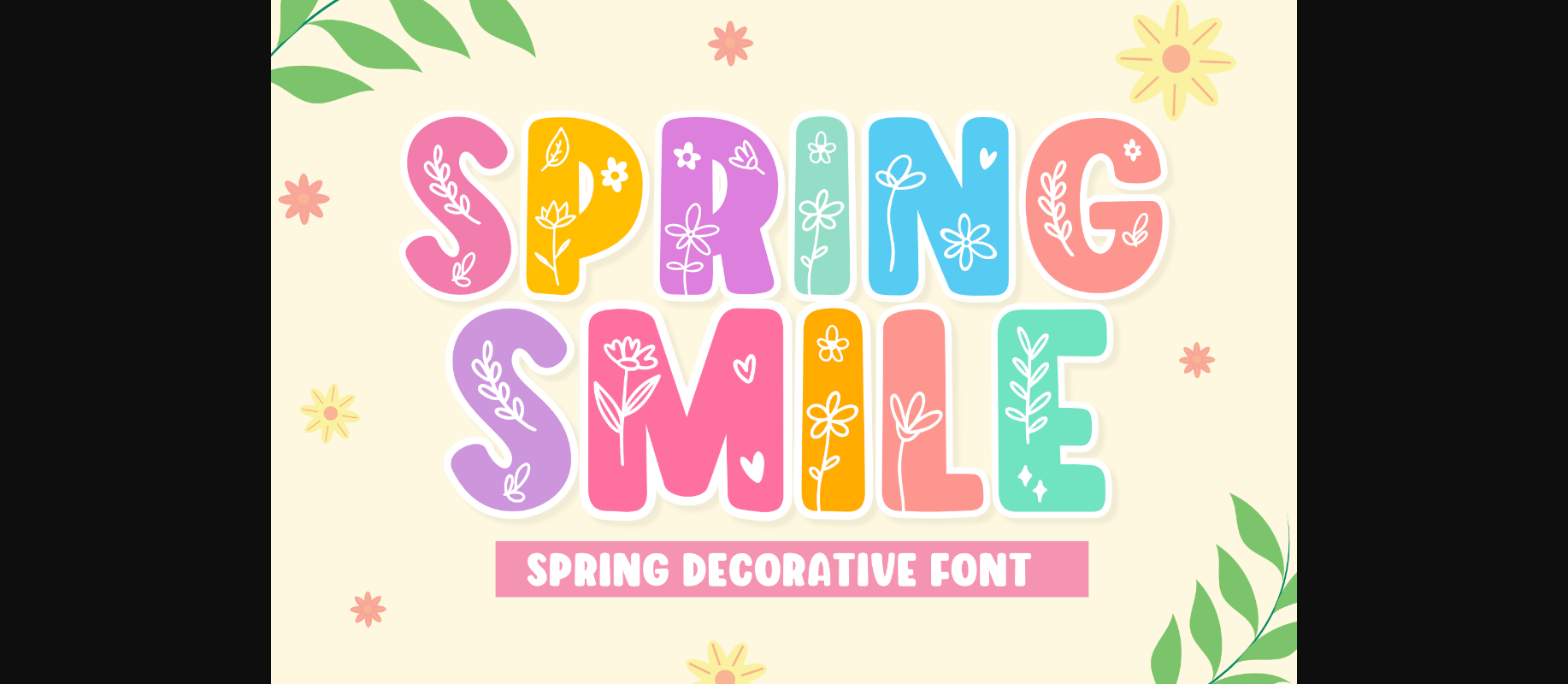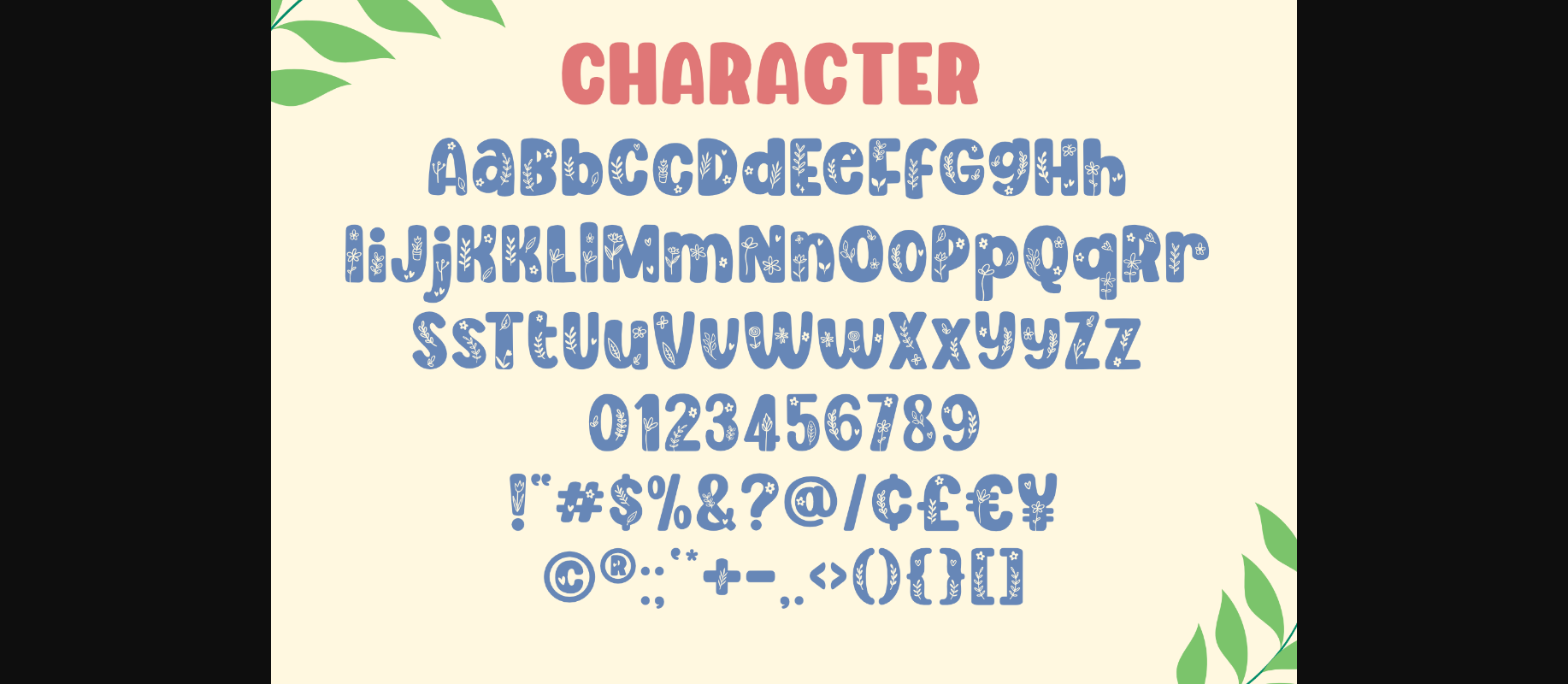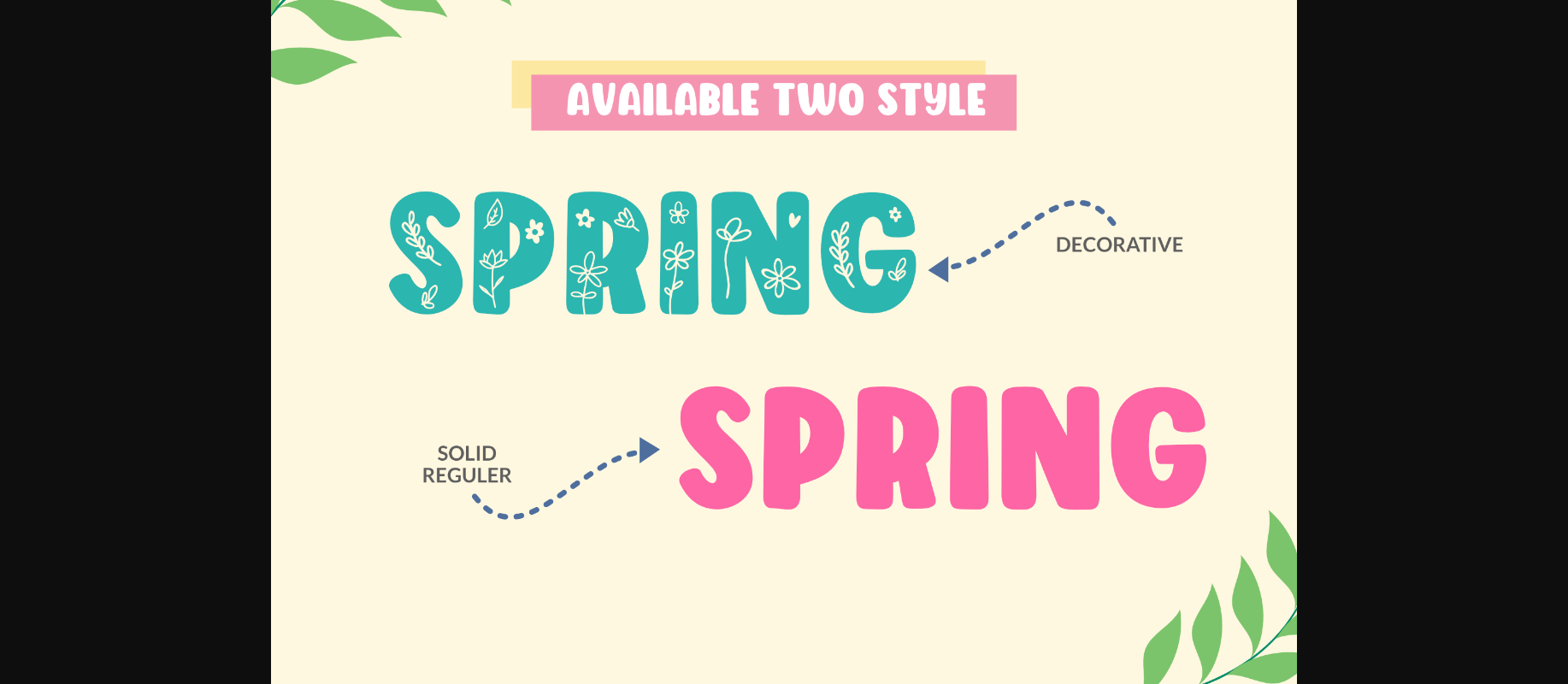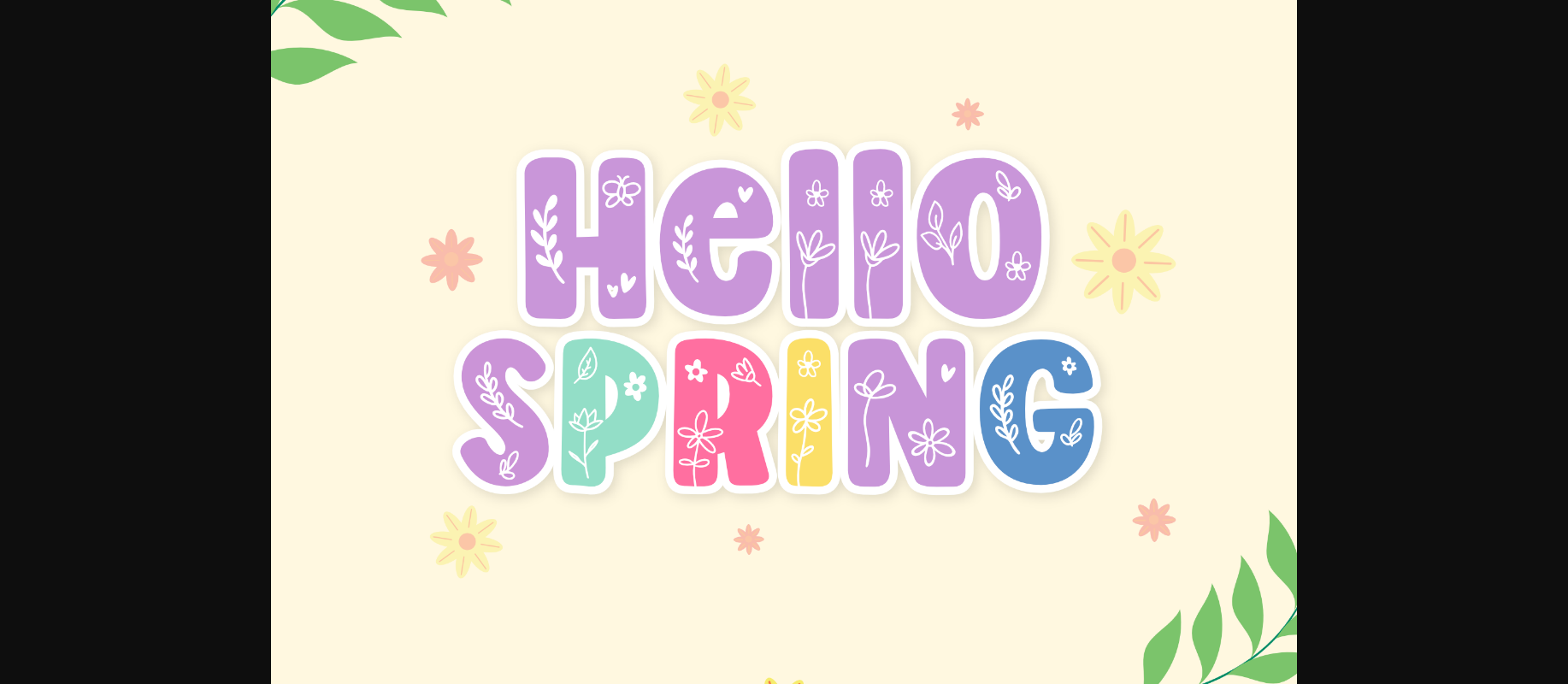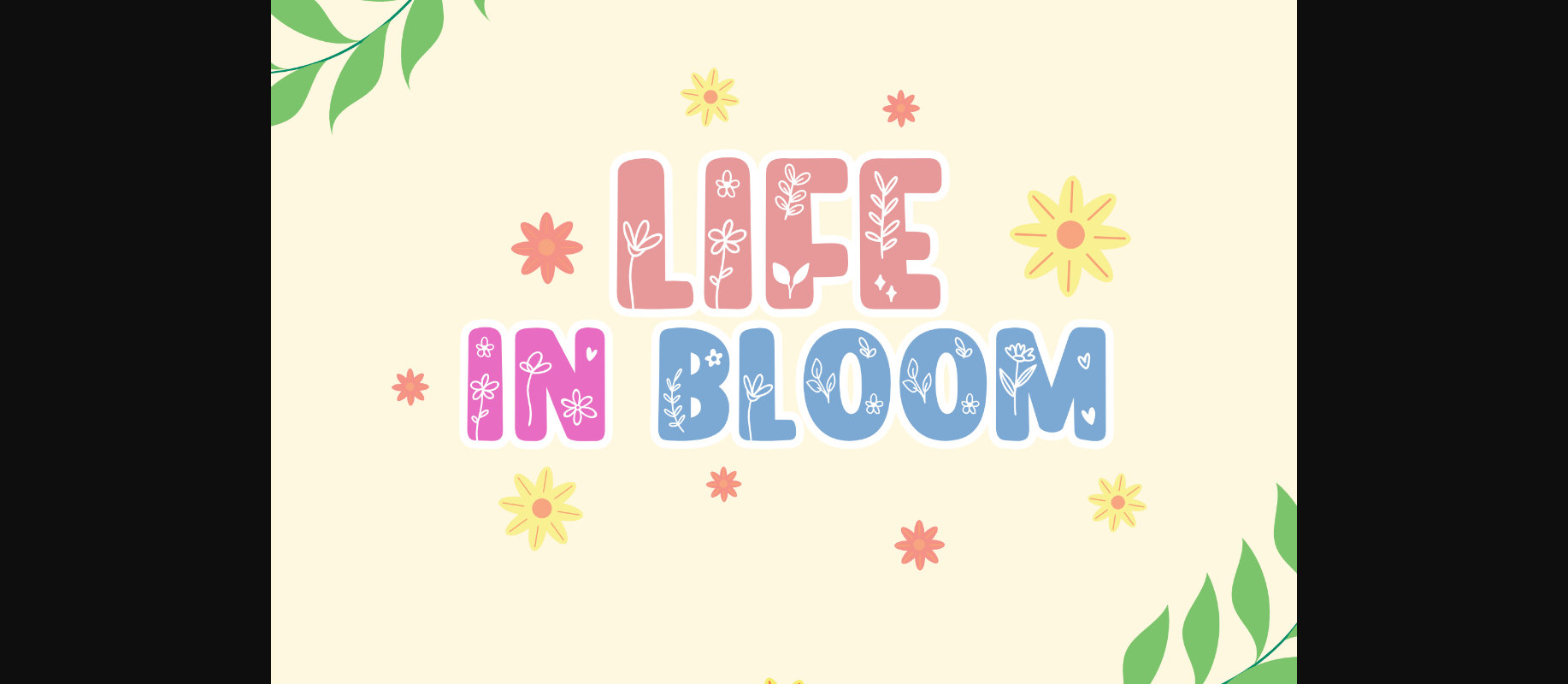
Spring Smile Font
About Spring Smile Font
Spring Smile is an adorable, bold and thick lettered decorative font. Whether you use it for cartoon related designs, spring crafts, children games or just any creation that requires a lovely touch, this font will be an amazing choice.